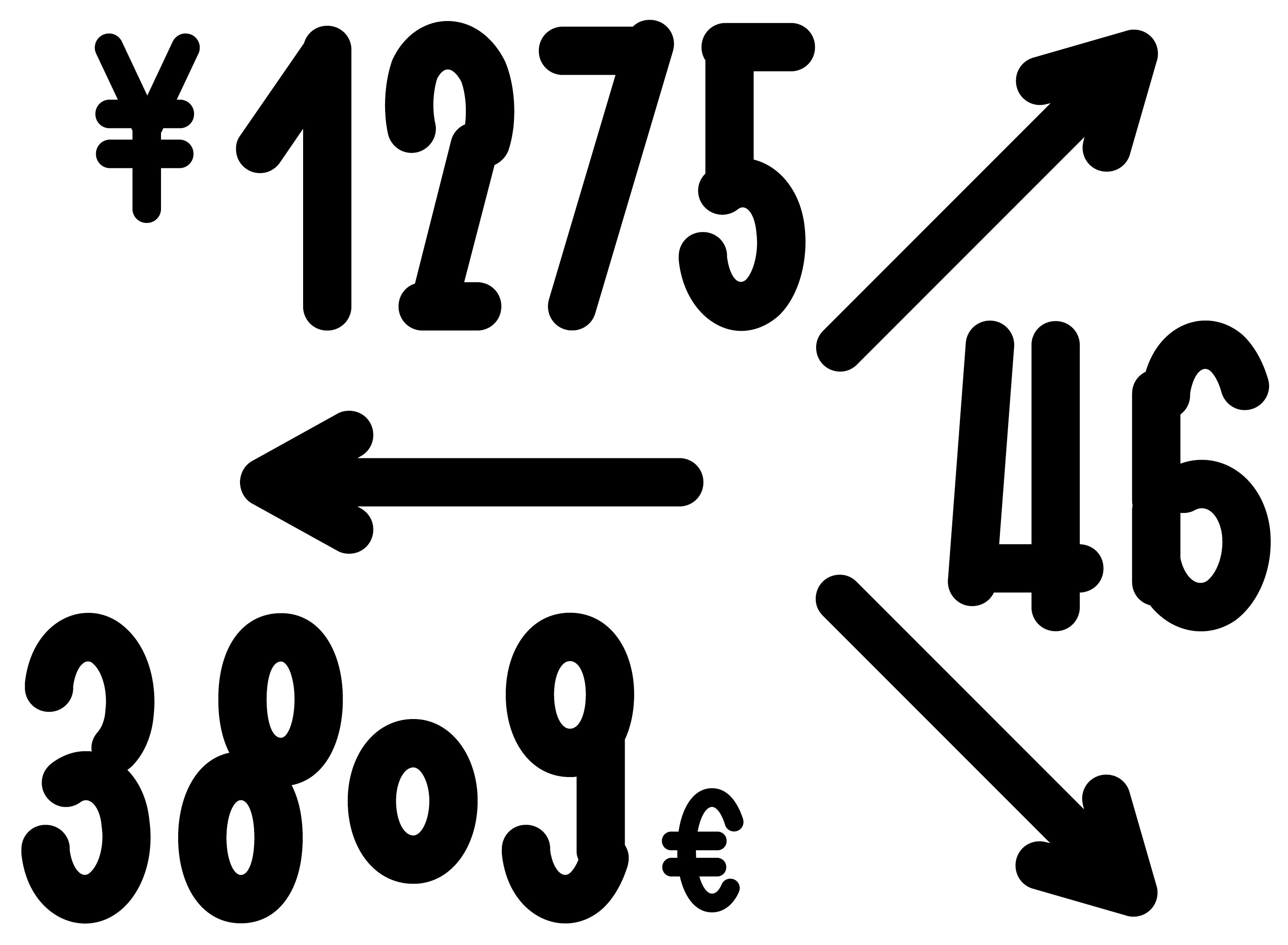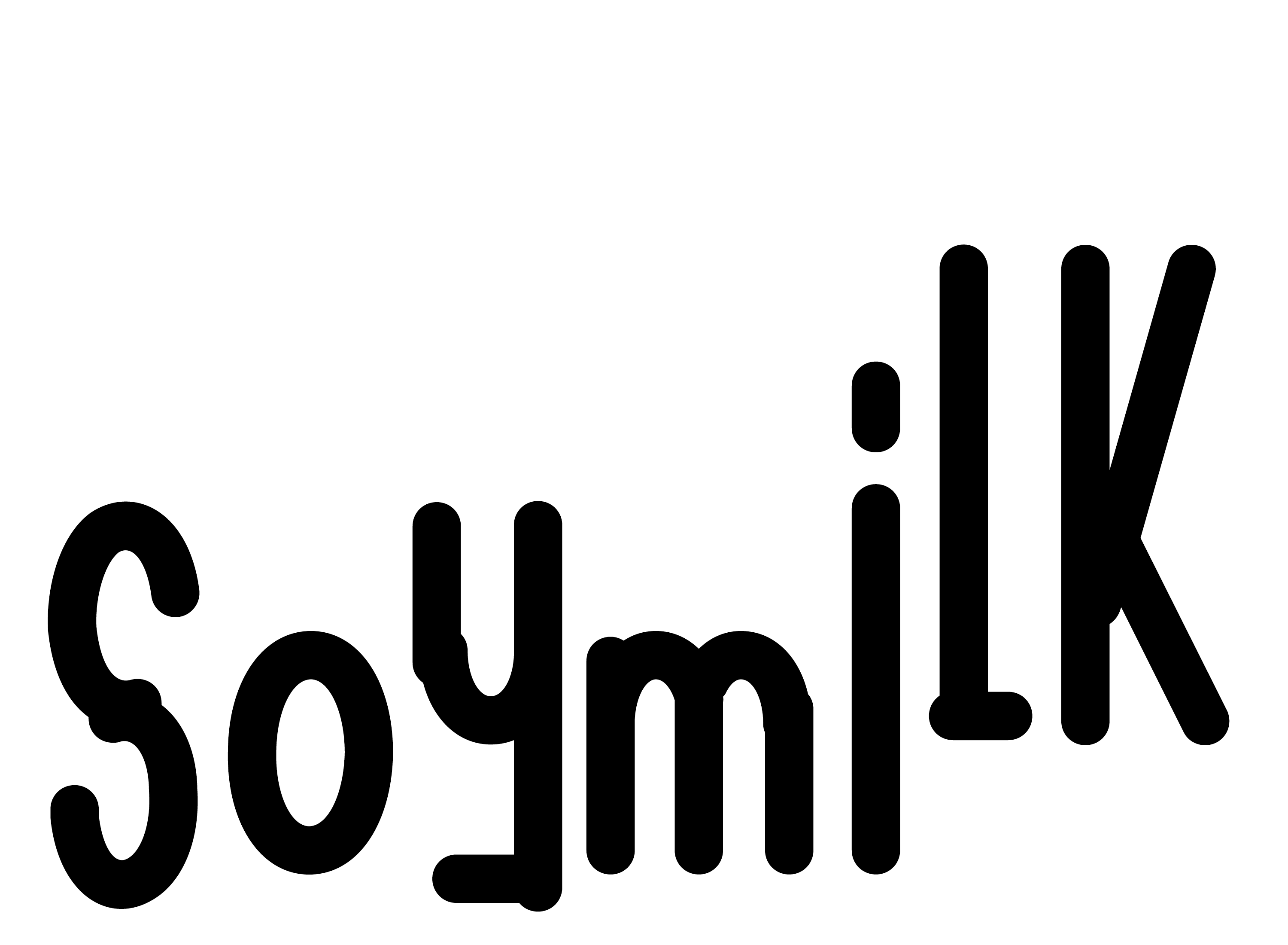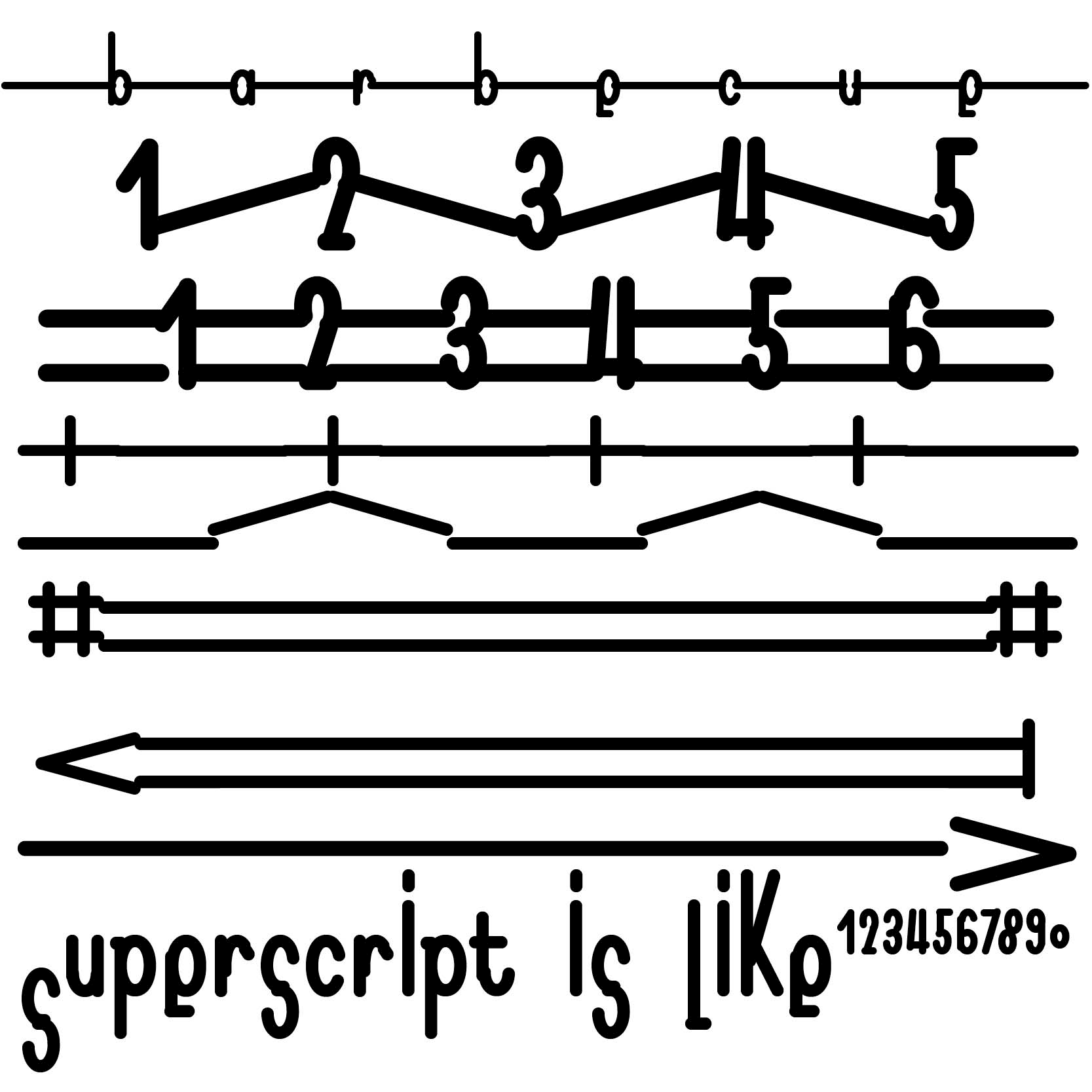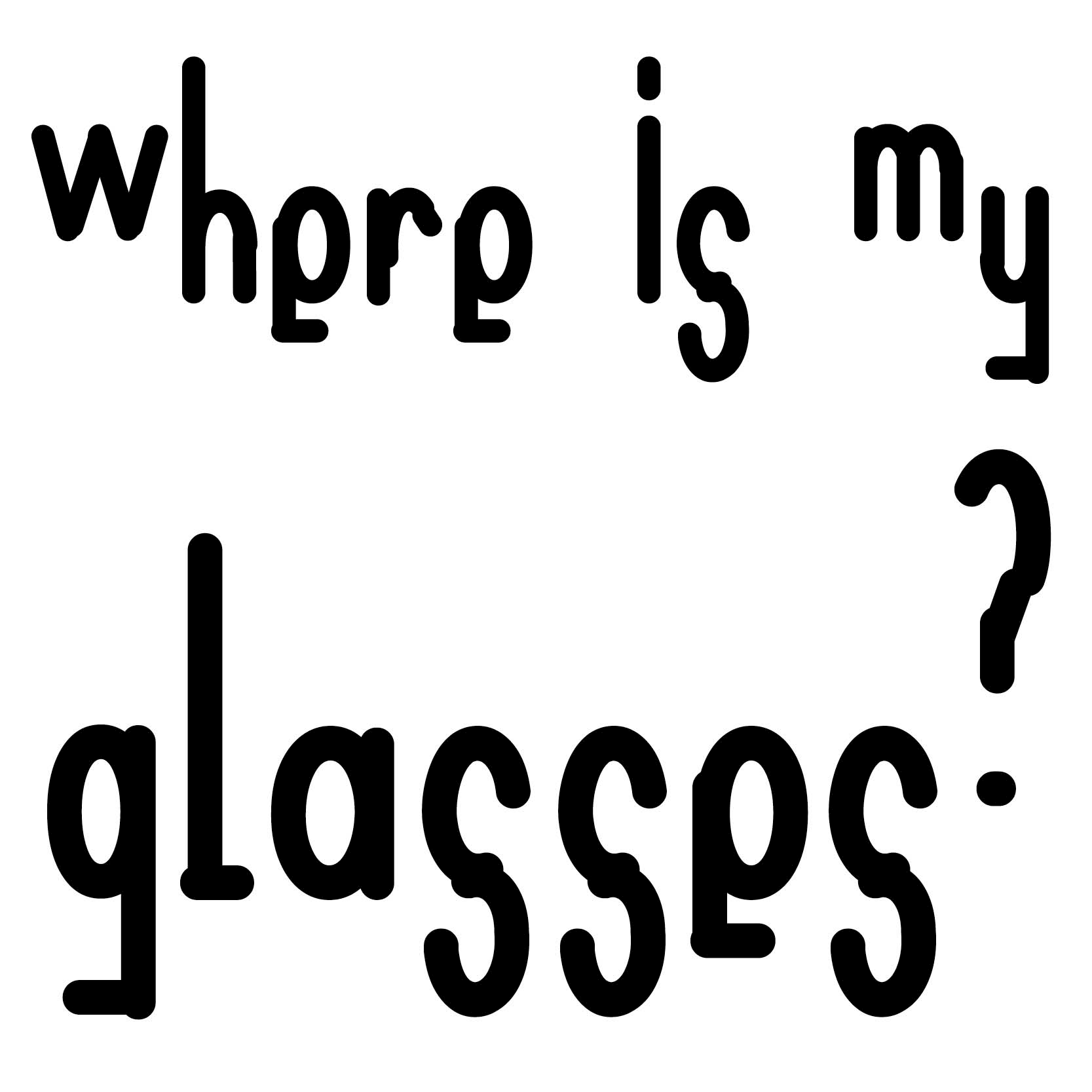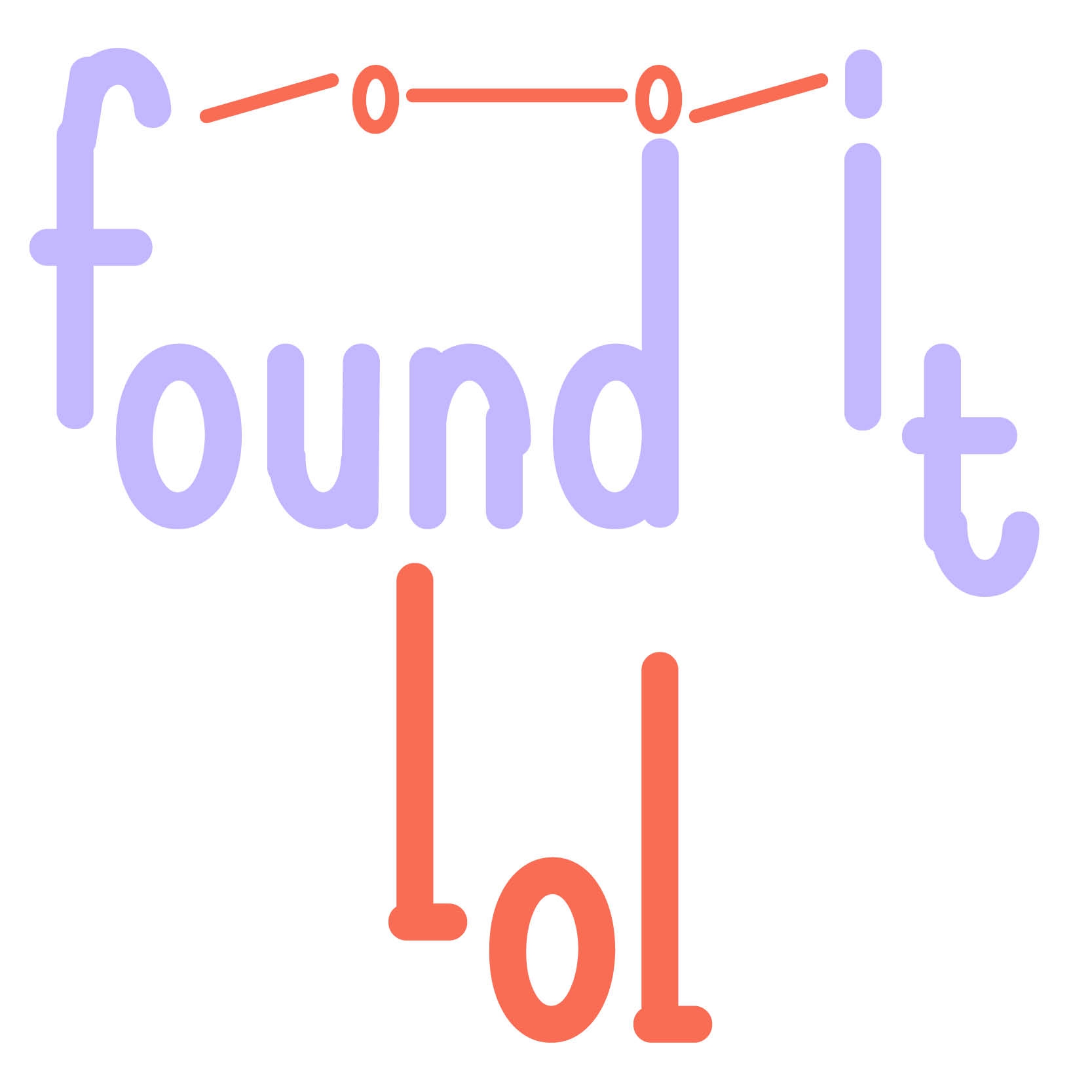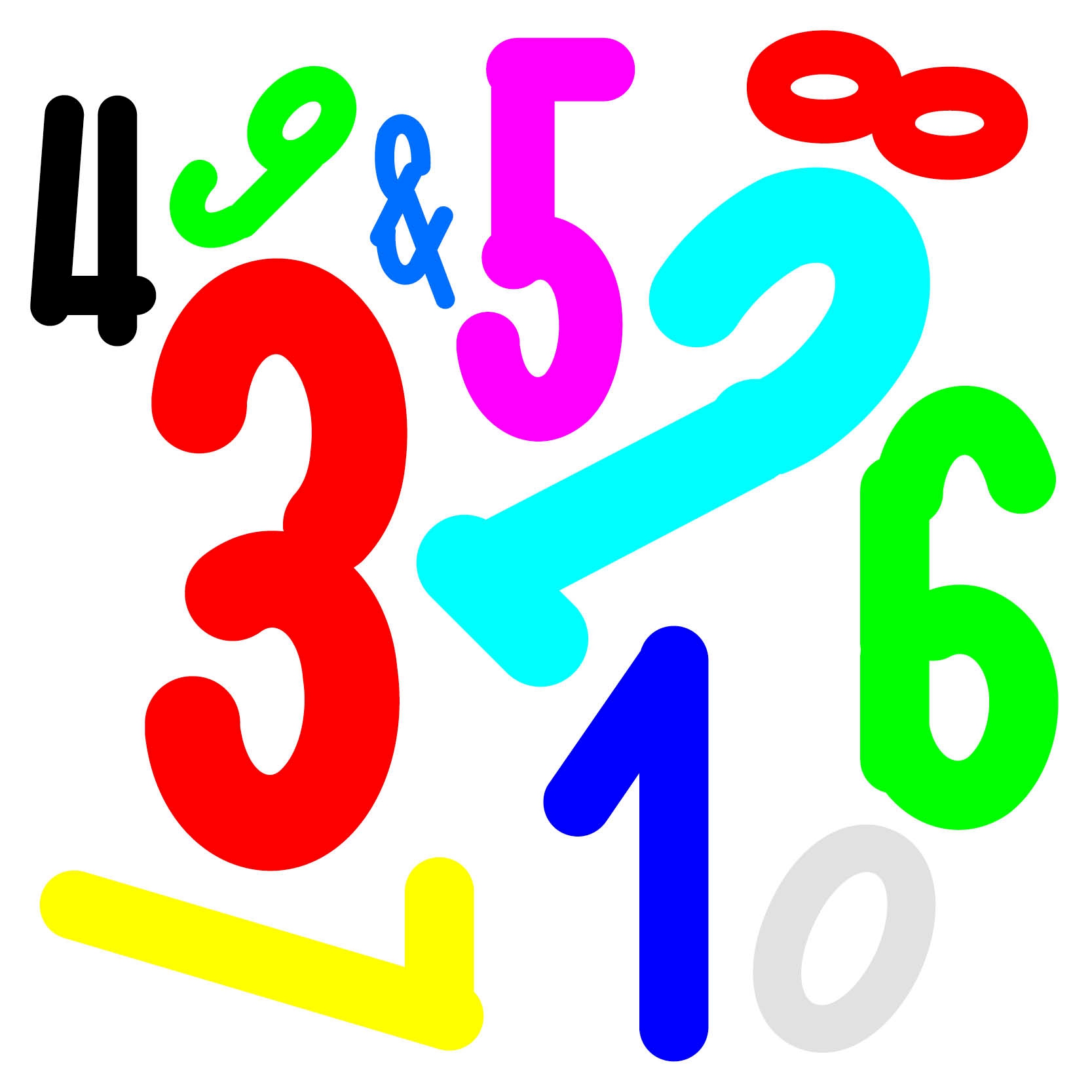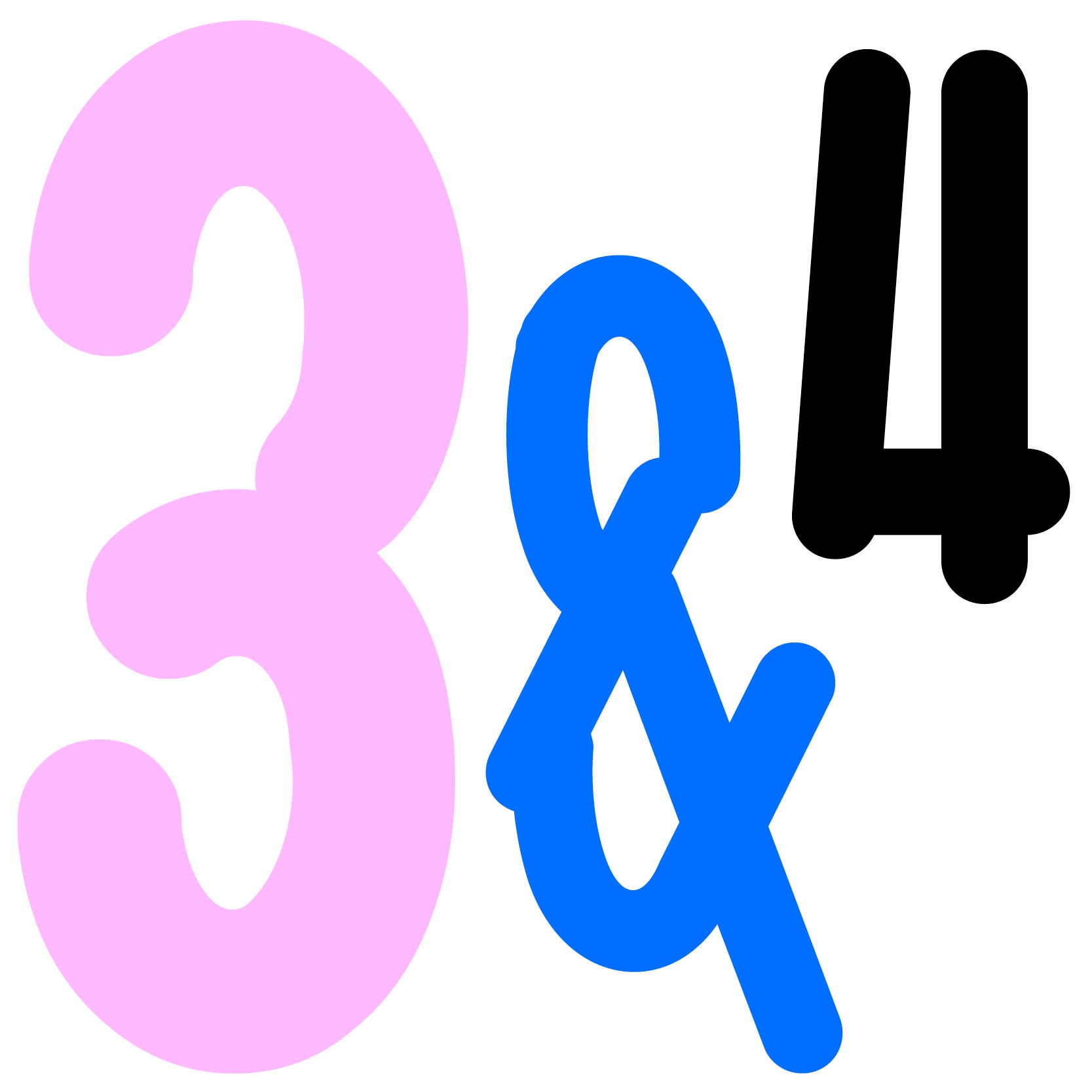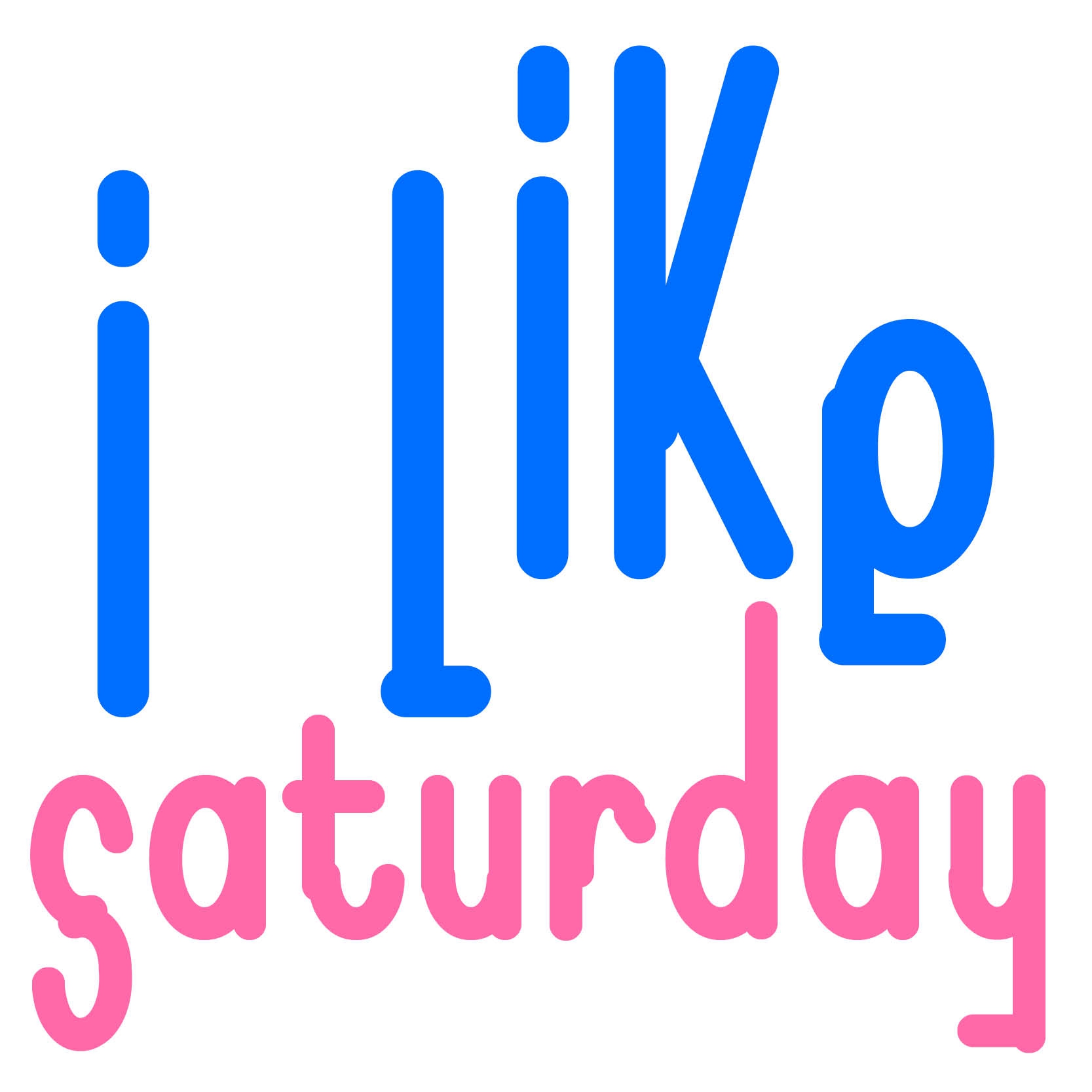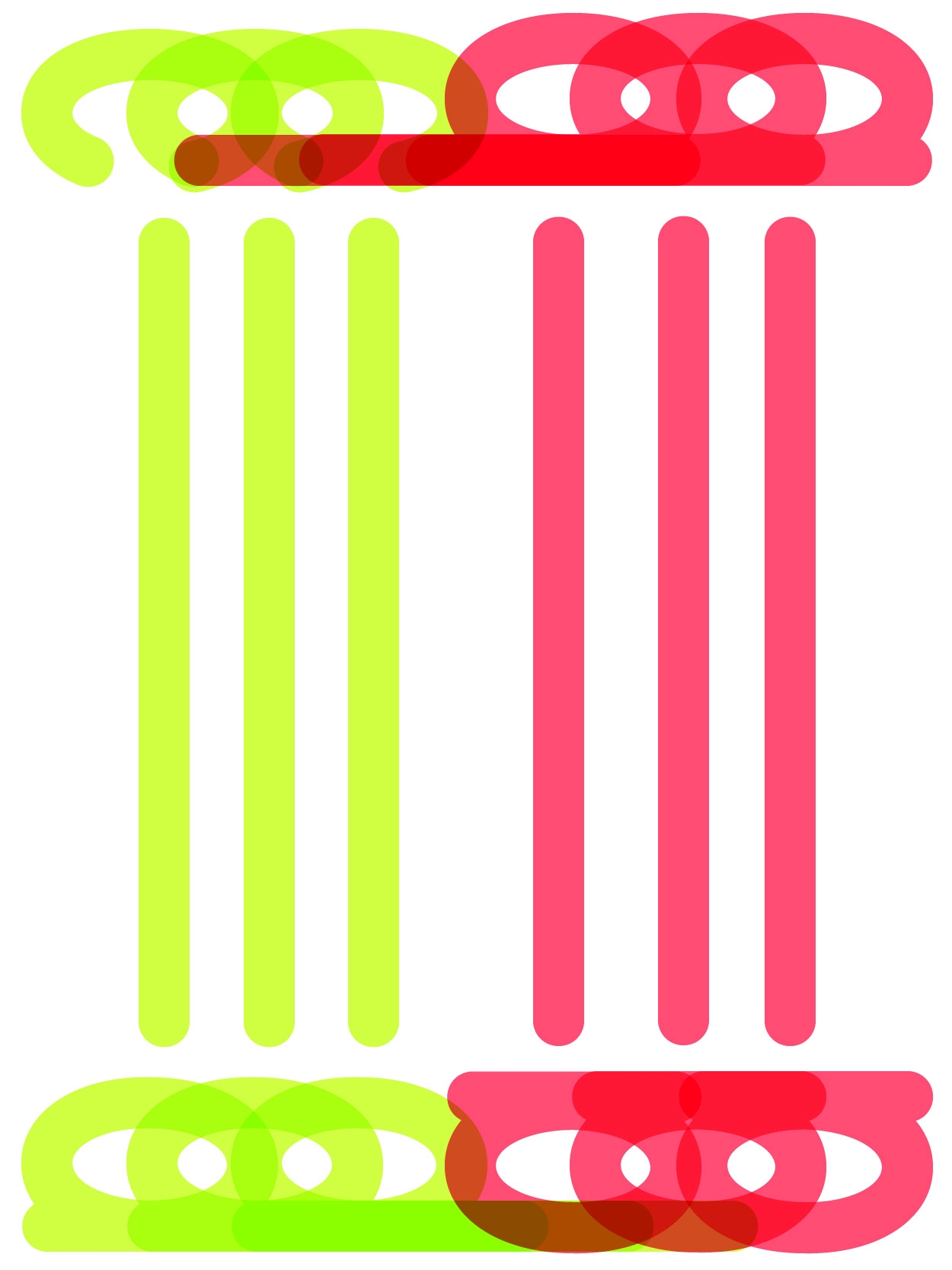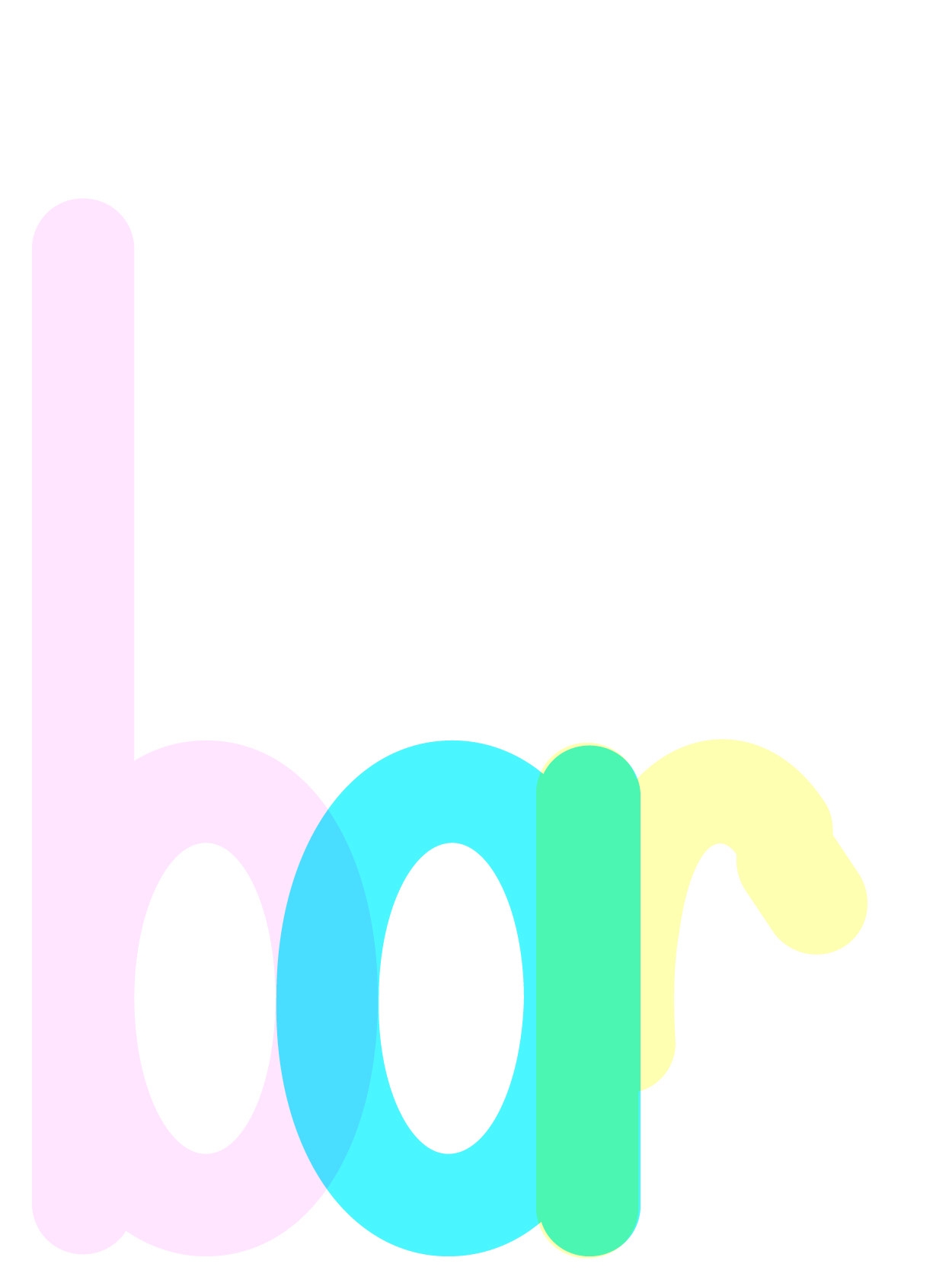
barbecue
barbecue is a typeface that explores 'typing design'—the idea of making the act of typing itself part of the design practice. When you toggle CAPS LOCK on and off, the letters jump up and down, turning a simple keyboard action into a playful typographic performance.
Xiaoyuan's note:
barbecue is a typeface plays with unconventional alignments, and fun punctuation designs. The hyphen —— is extra long, so people can make ---b-a-r-b-e-c-u-e--- with letters! The dirty trick for playing this typeface — is to shift between CAP and lowercase to have jumping letters.
I have always considered a font file to be a tool for typing. Before digital typefaces existed, there were typewriters. I find that a font file is much like a typewriter; to design a typeface is to design a typewriter, and to design a typing experience is to make an entire typewriter yourself — what happens when you press "tab" on your keyboard, what happens when you cancel the "tab", how letters appears when you keep shifting between CAP and lowercase, etc. There are so much more to exlore in this, I hope I can talk about it more in details someday. :)